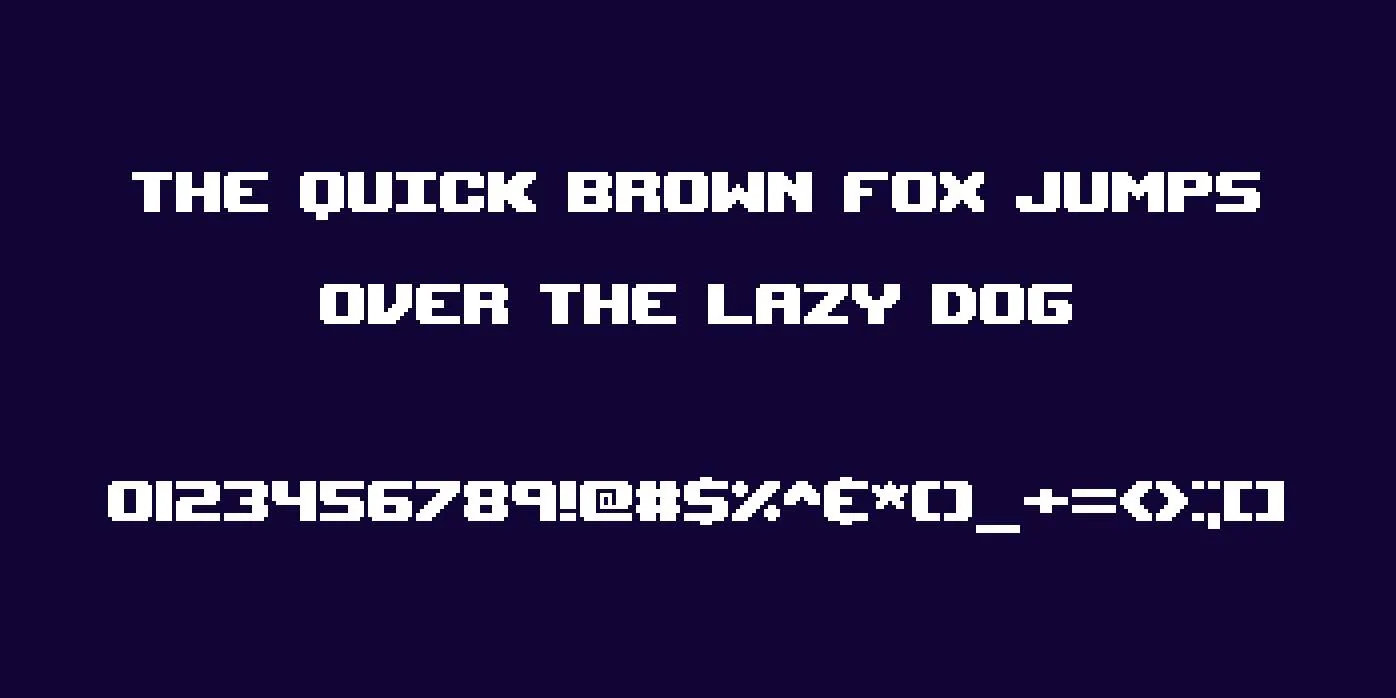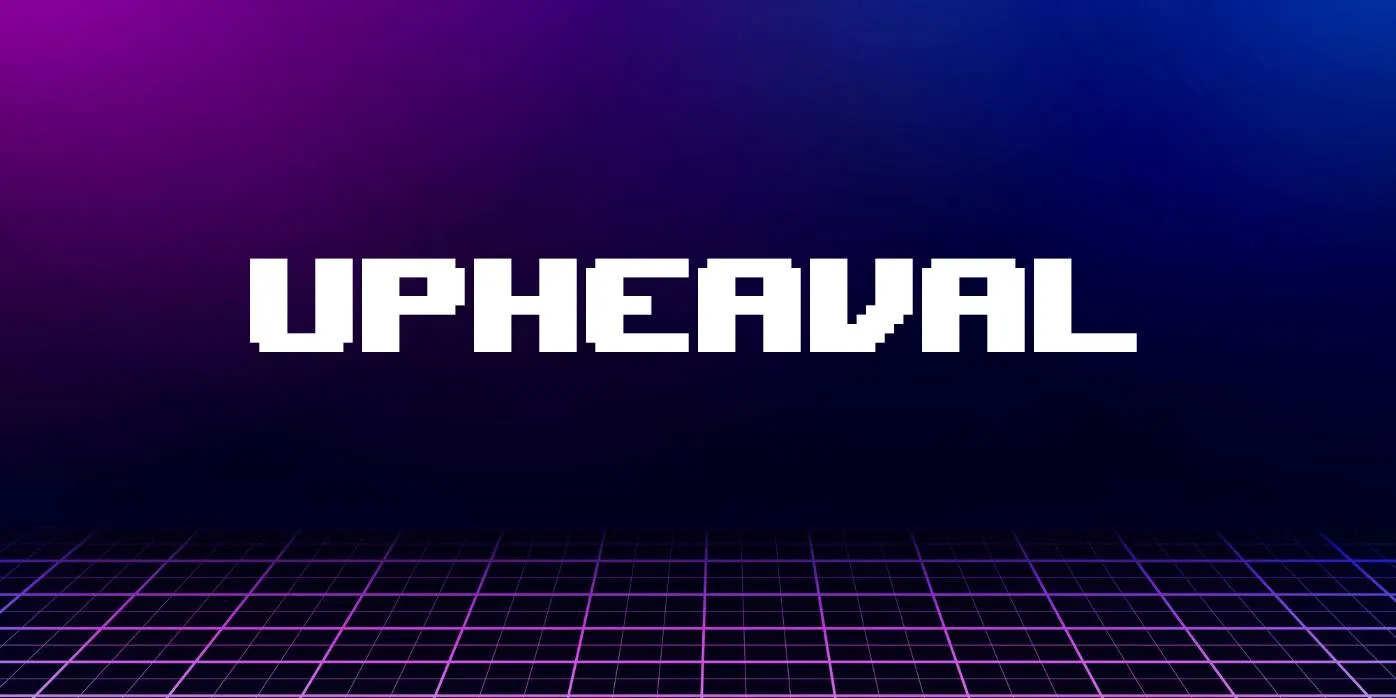
Upheaval Font
Upheaval Font is a very interesting and unique font. It was designed by a famous designer Aeigma. It can be used to make different projects. This font contains 227 characters,224 glyphs, and 1000 units per Em.
Its pitch is not monospaced and it follows a pattern nature regular. Usage It is a very unique font and can be used to make so many different projects. This font has characters, symbols, small letters, capital letters, special characters, numbers, and punctuation. You can use it for both types of body text and to make attractive headlines.
FAQs! Who created the Upheaval Font? It is a very amazing font and was designed by Aenigma. You can use this font to make so many different projects also.